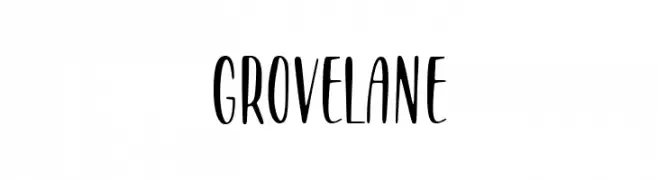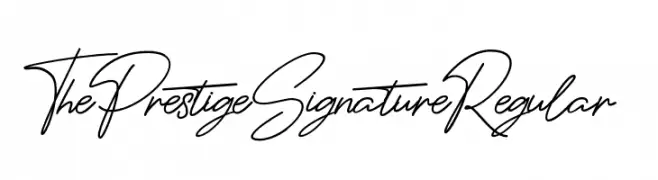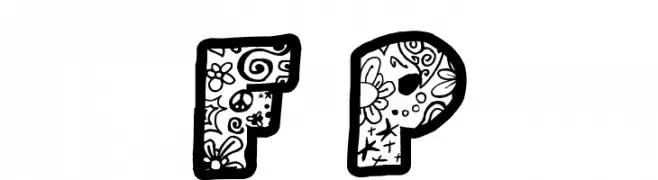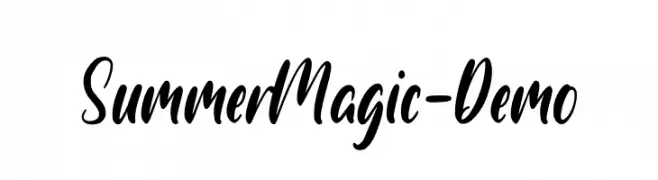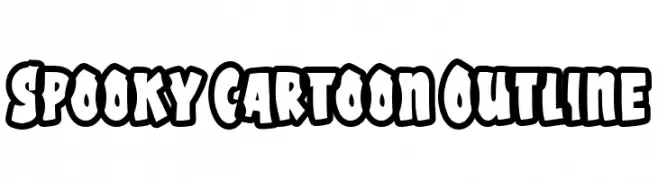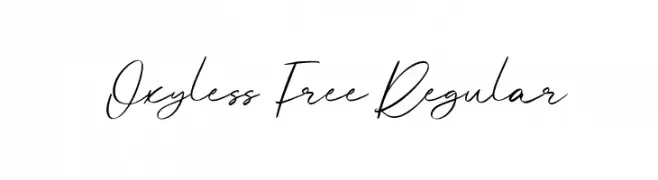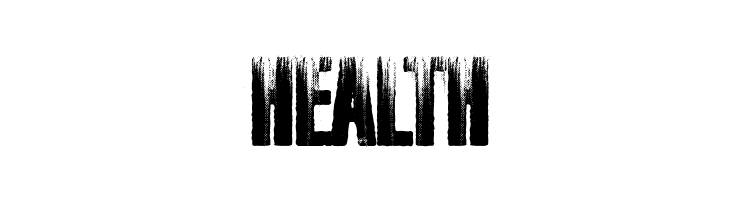
An ancient script-inspired font with bold, angular, and geometric characters.
A bold, playful font with a unique striped pattern and three-dimensional effect.
A playful, modern handwritten font with tall, narrow characters and smooth strokes.
An elegant, flowing script font with a sophisticated, handwritten style.
A bold, decorative font with intricate floral patterns inside each character.
A lively, handwritten font with smooth curves and medium contrast.
A bold, jagged font with spiky, energetic characters.
A bold, cartoonish font with thick outlines and playful, rounded characters.
A modern, elegant handwritten script with fluid, continuous strokes.
A modern, geometric sans-serif font with a clean and balanced design.